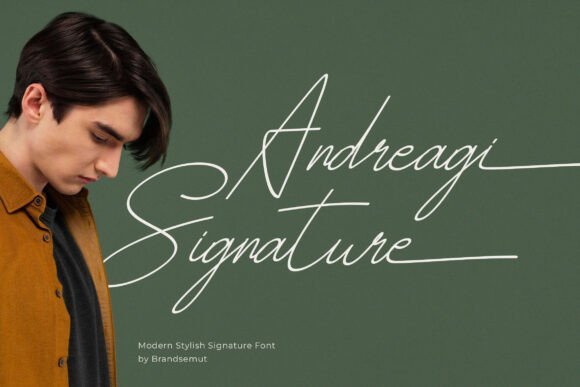
Unleash Your Creativity with the Andreagi Signature Font
You know that feeling when you’re working on a design project and you just can’t quite capture the essence of your idea? The words are jumbled, the letters are awkward, and your beautiful vision is starting to look more like a hot mess? Yeah, we’ve been there too. That’s why we’re so excited to introduce the Andreagi Signature Font – a stunning handwritten script that’s about to revolutionize the way you design.
This gorgeous font is more than just a pretty face (although, let’s be real, it’s a pretty face). The Andreagi Signature Font is a valuable tool for designers who want to add a touch of elegance and sophistication to their work. With a full set of lowercase and uppercase letters, multilingual support, numerals, and punctuation, you’ll be able to express yourself in a way that’s truly unique.
- Unique Characteristics: The font features a unique blend of modern and elegant elements, with a focus on sophistication and luxury.
- Script and Glyphs: Andreagi Signature Font includes a wide range of script and glyph options, allowing for creative and personalized designs.
Andreagi Signature Font Review
As a designer, I was excited to dive into the Andreagi Signature Font. Here’s my honest take.
- The font has a unique, modern aesthetic that’s perfect for creative projects.
- The bold and regular weights complement each other well, making it suitable for a variety of uses.
- The font is highly customizable, with options for font size, color, and even background images.
- It’s available in several languages, making it a great choice for international projects.
- The font is quite ornate, which may not be suitable for projects where simplicity is key.
- The font may not be as readable at very small sizes, which could be a concern for certain use cases.
The Andreagi Signature Font is a great choice for designers who want to add a touch of elegance and sophistication to their projects. While it may have some limitations, its unique aesthetic and customization options make it a valuable addition to any design toolbox.
Tips for Getting the Most Out of Andreagi Signature Font
Use bold or italic styles to add emphasis and create visual interest.
Experiment with different font sizes and line spacing to achieve the desired visual balance.
Combine Andreagi Signature Font with other fonts to create a unique and eye-catching design.
Use Andreagi Signature Font for:
Logo designs and branding materials.
Business
Alternative Fonts to Andreagi Signature Font
Great Vibes is a beautiful, elegant script font perfect for adding a touch of sophistication to your designs. It’s ideal for use in logos, invitations, and other creative projects where a flowing, handwritten feel is desired.
Comparison to Andreagi Signature Font: Great Vibes has a more refined, polished look compared to Andreagi Signature Font’s more rough-around-the-edges feel. Great Vibes is also more versatile and can be used in a wider range of applications.
Pacifico is a stunning, modern script font that’s perfect for creating a relaxed, beachy vibe. It’s ideal for use in logos, branding, and other design projects where a casual, laid-back feel is desired.
Comparison to Andreagi Signature Font: Pacifico has a more streamlined, sophisticated look compared to Andreagi Signature Font’s more rustic feel. Pacifico is also more suitable for use in digital applications due to its clean, modern design.